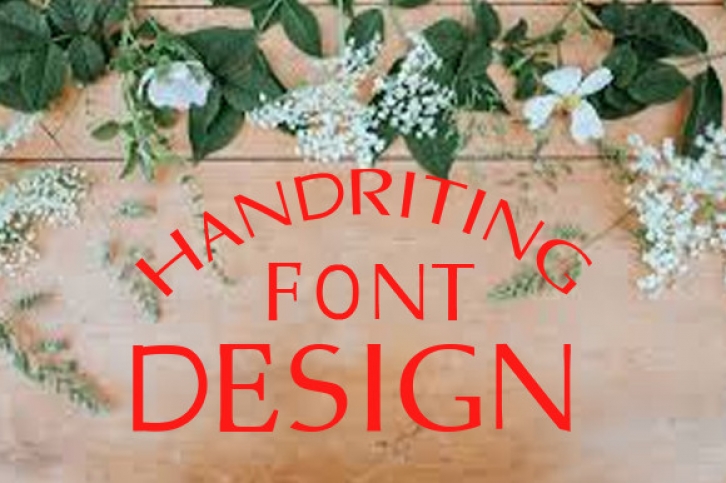
Handwriting is a cool and bold display font. Whatever the topic, this font will be a wonderful asset to your font library, as it has the potential to enhance any creation.